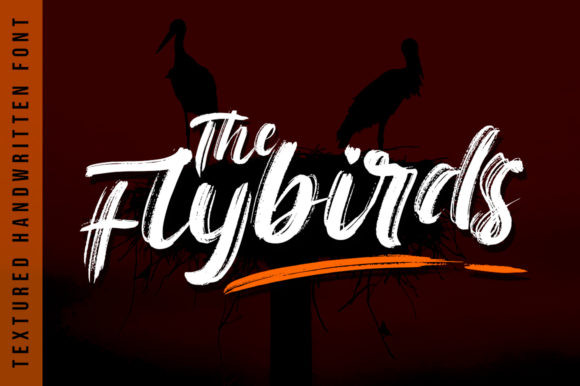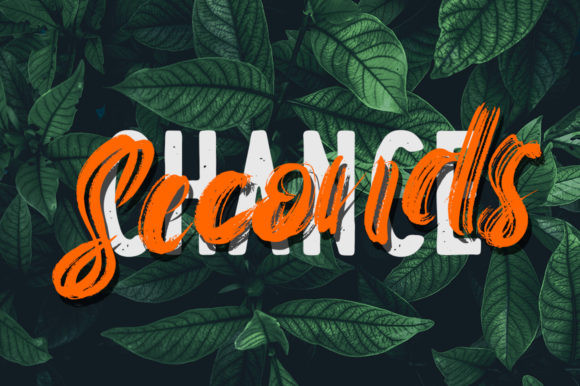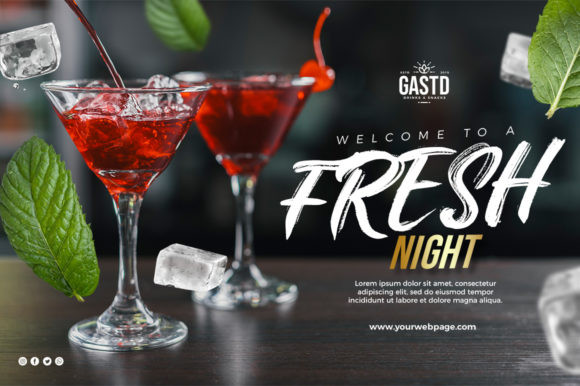
The Flybirds Font
The Flybirds Fonts is a strong handwritten and drybrush font. It features a bold and casual style. Each stroke was carefully drawn to display great flow and harmony. The Flybirds is suitable for branding projects, clothing, advertising, product packaging and much more!